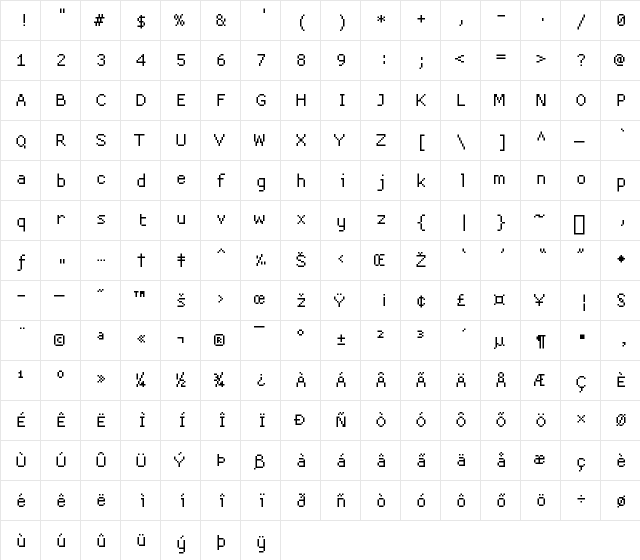
ProggyCleanTTSZ Regular
Design Context for ProggyCleanTTSZ Typeface
ProggyCleanTTSZ offers clean, dependable letterforms without strong stylistic allegiance, making it a practical choice for designers who need flexibility.
Pro Tip: Pair ProggyCleanTTSZ with a font of contrasting weight or personality to build a more expressive typographic hierarchy.